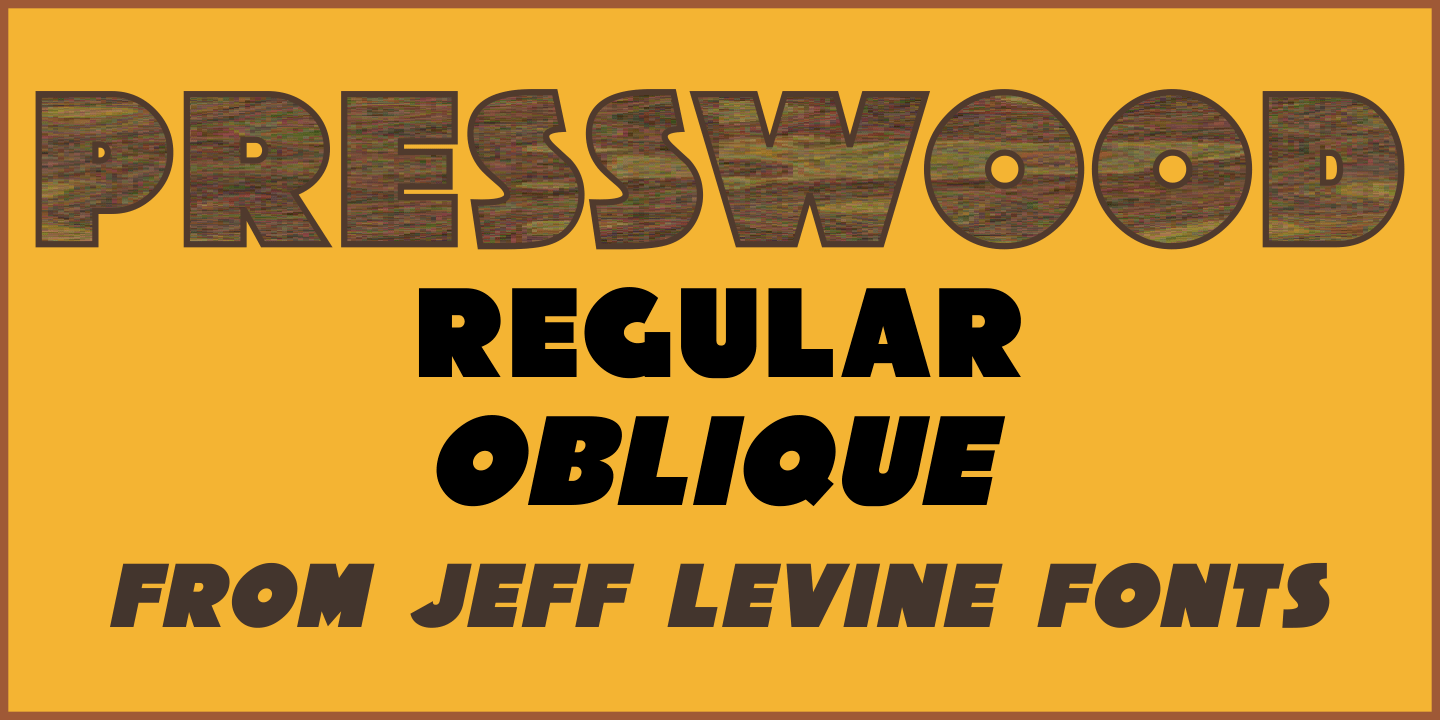
Presswood
Presswood JNL was modeled from the title font used on the cover of a specimen book issued by the Delittle Wood Type Company of York, England.
This bold, friendly sans serif is available in both regular and oblique versions.